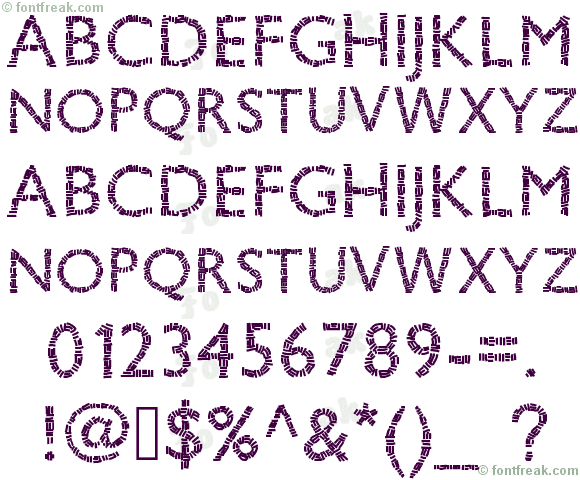
PWSavane
About PWSavane
PWSavane, designed by Peax Webdesign, is a unique display font that brings a distinctive character to any project. This freeware font features a playful and artistic style, characterized by its bold, irregular strokes and a lively arrangement that resembles a mix of geometric shapes. The strokes vary in weight, creating a visually dynamic contrast that captures attention while maintaining readability. The spacing between characters is thoughtfully designed, allowing the text to breathe and enhancing its overall aesthetic appeal.
Ideal for a variety of creative applications, PWSavane excels in settings such as event flyers, artistic posters, trendy restaurant menus, and even children’s book covers. Its whimsical nature makes it suitable for projects that aim to convey a sense of fun and creativity, appealing to both young audiences and the young at heart. Graphic designers and content creators will find this font particularly useful for adding a unique touch to their work, while small business owners can utilize it to make their branding stand out in a crowded market.
What sets the PWSavane font apart is its ability to infuse personality into any design. Unlike standard fonts, it offers an artistic flair that can transform ordinary text into a captivating visual experience. Whether you are looking to create eye-catching promotional materials or simply want to add a distinctive style to your digital content, this font is an excellent choice. With the PWSavane font free download available, there’s no need to compromise on quality; you can elevate your projects with this stunning typeface today.